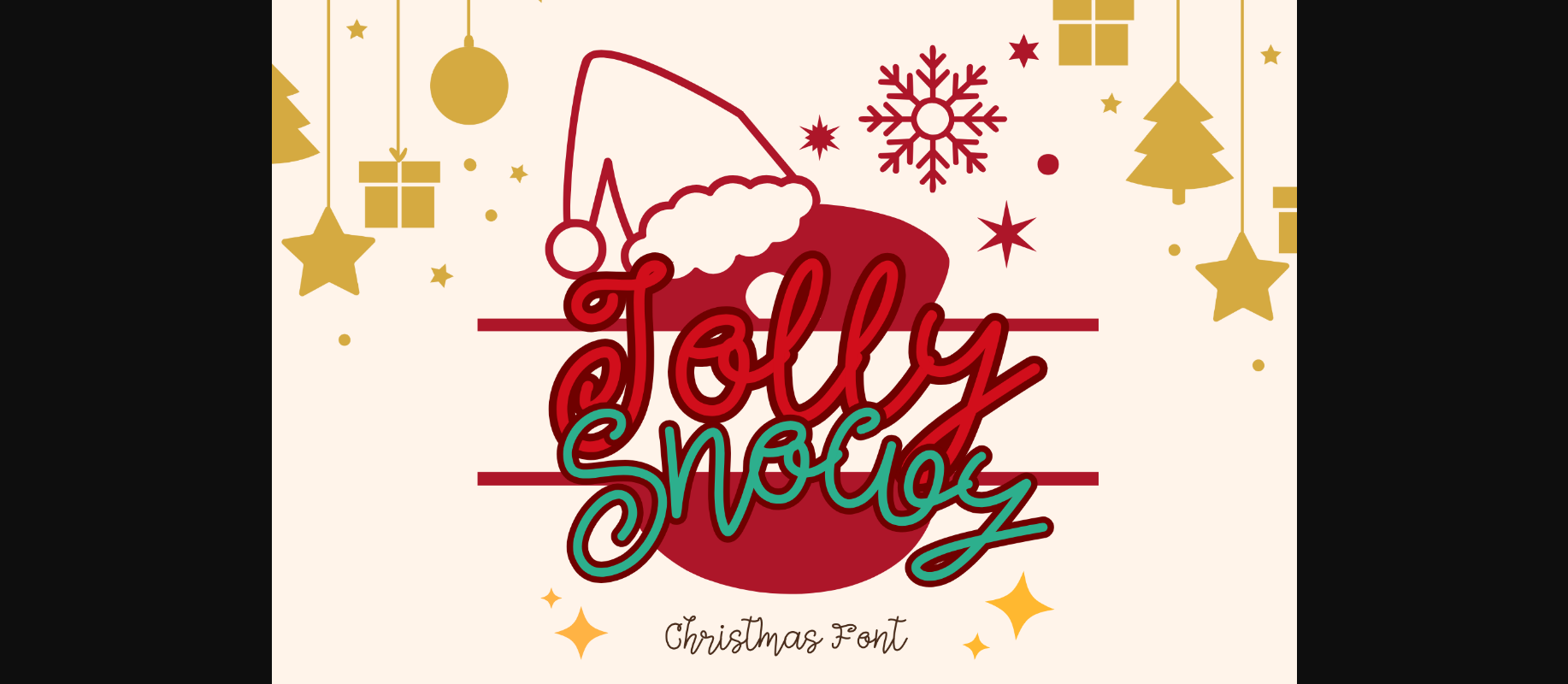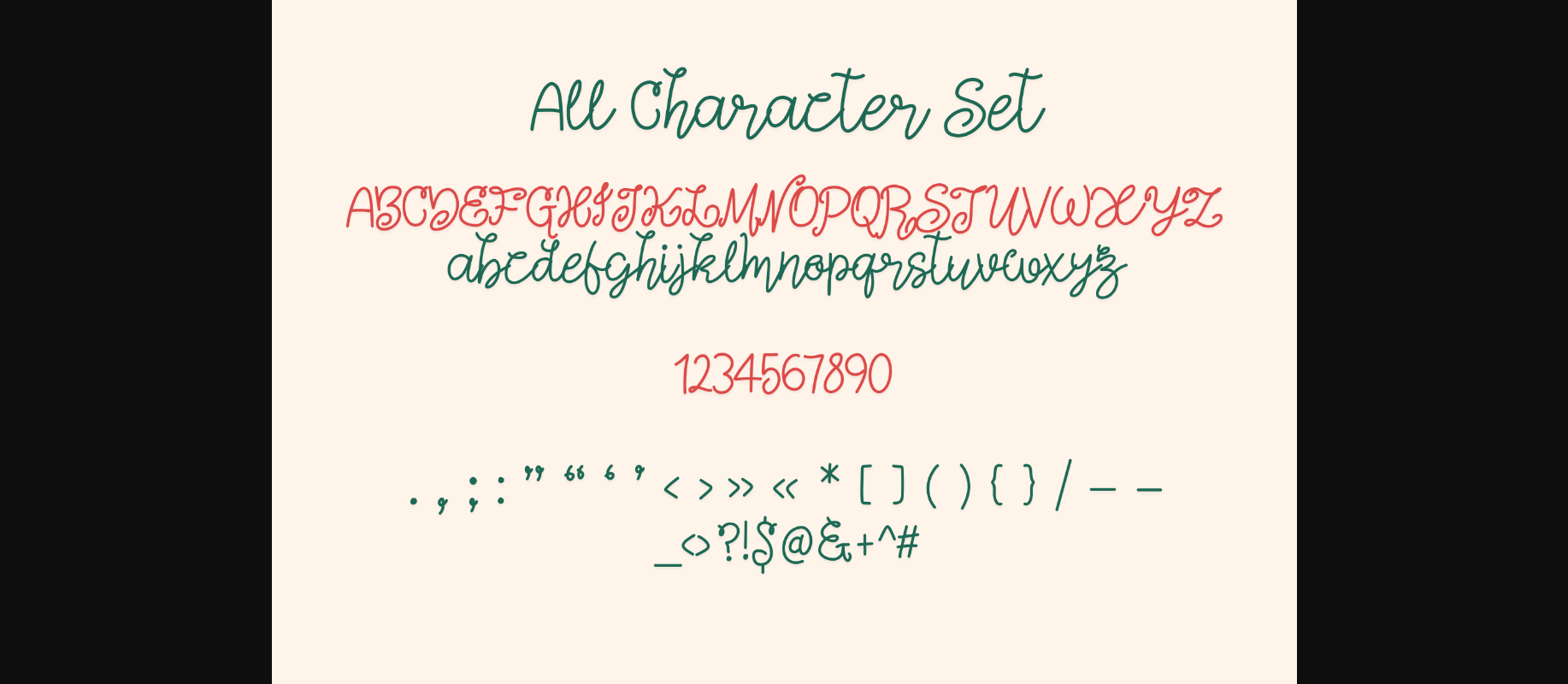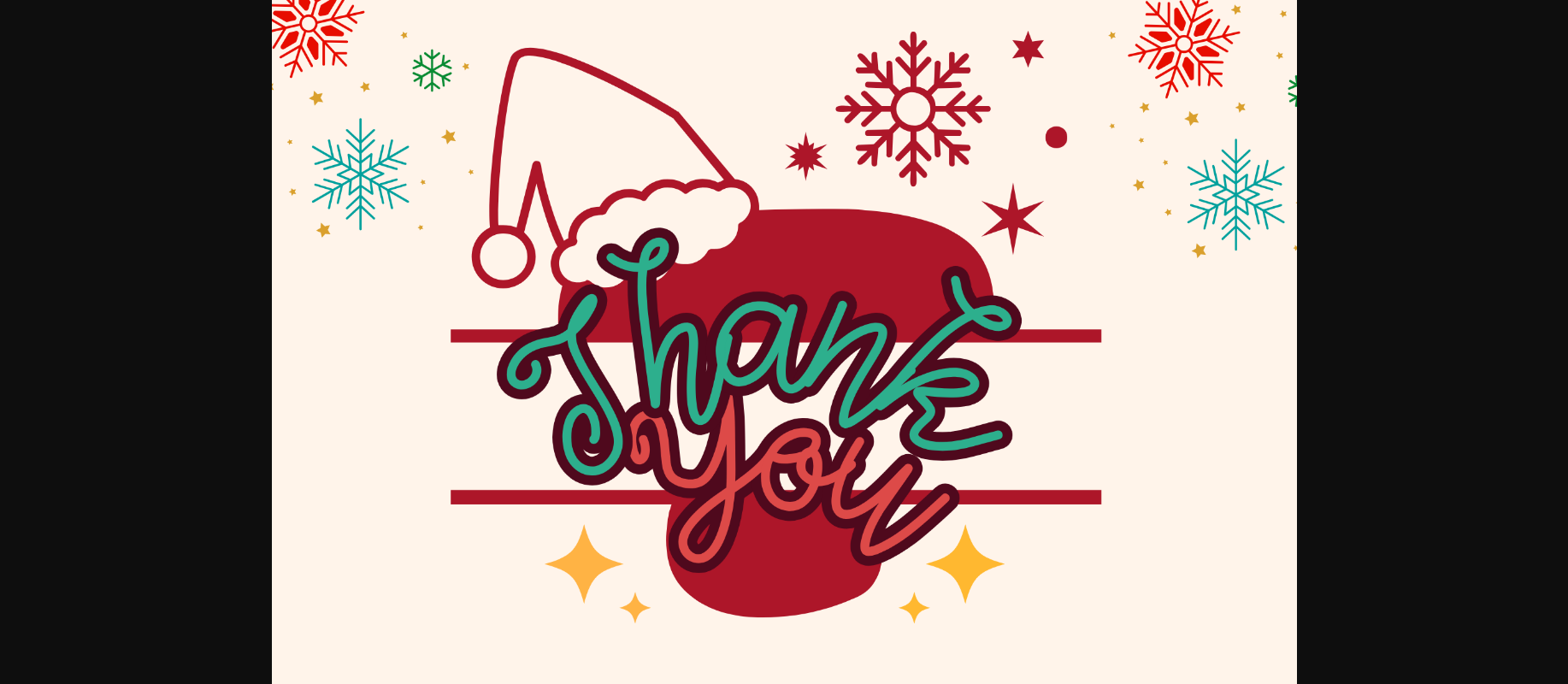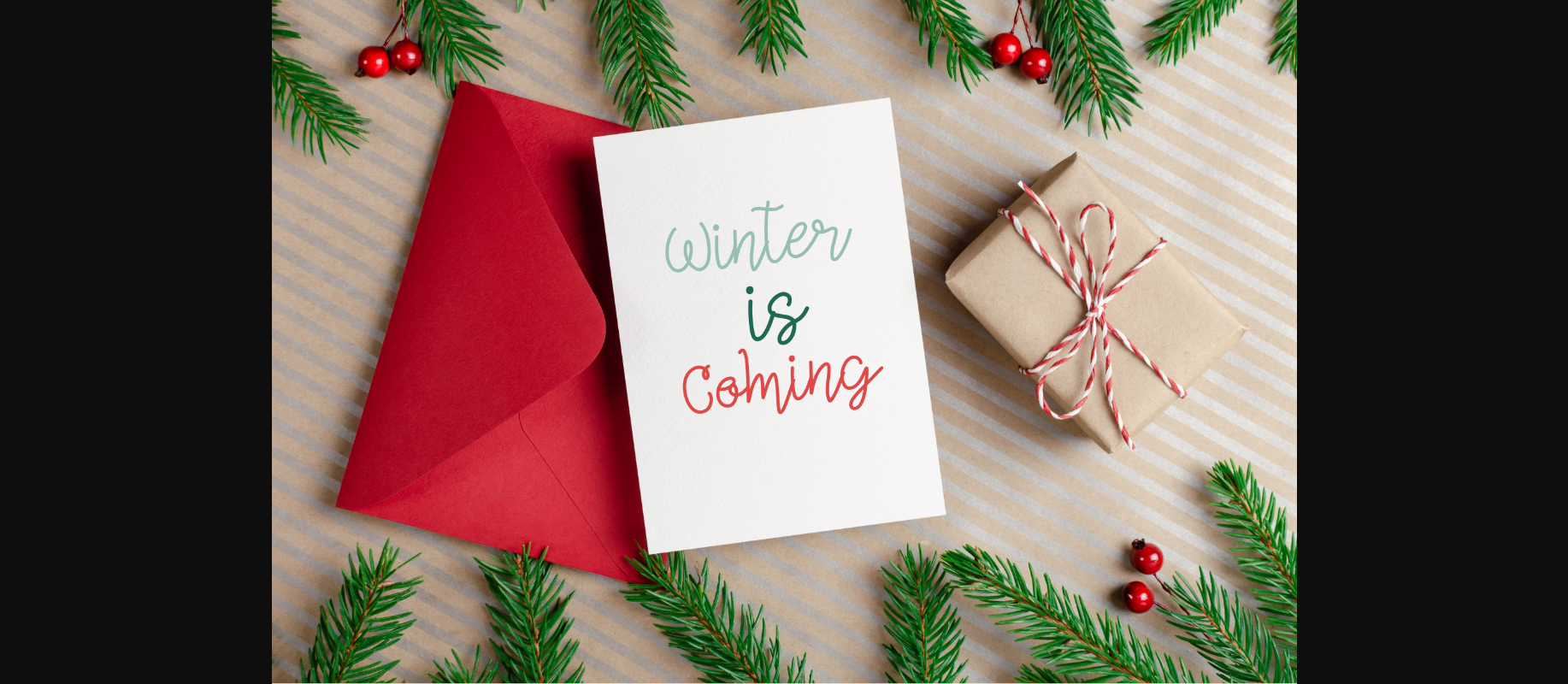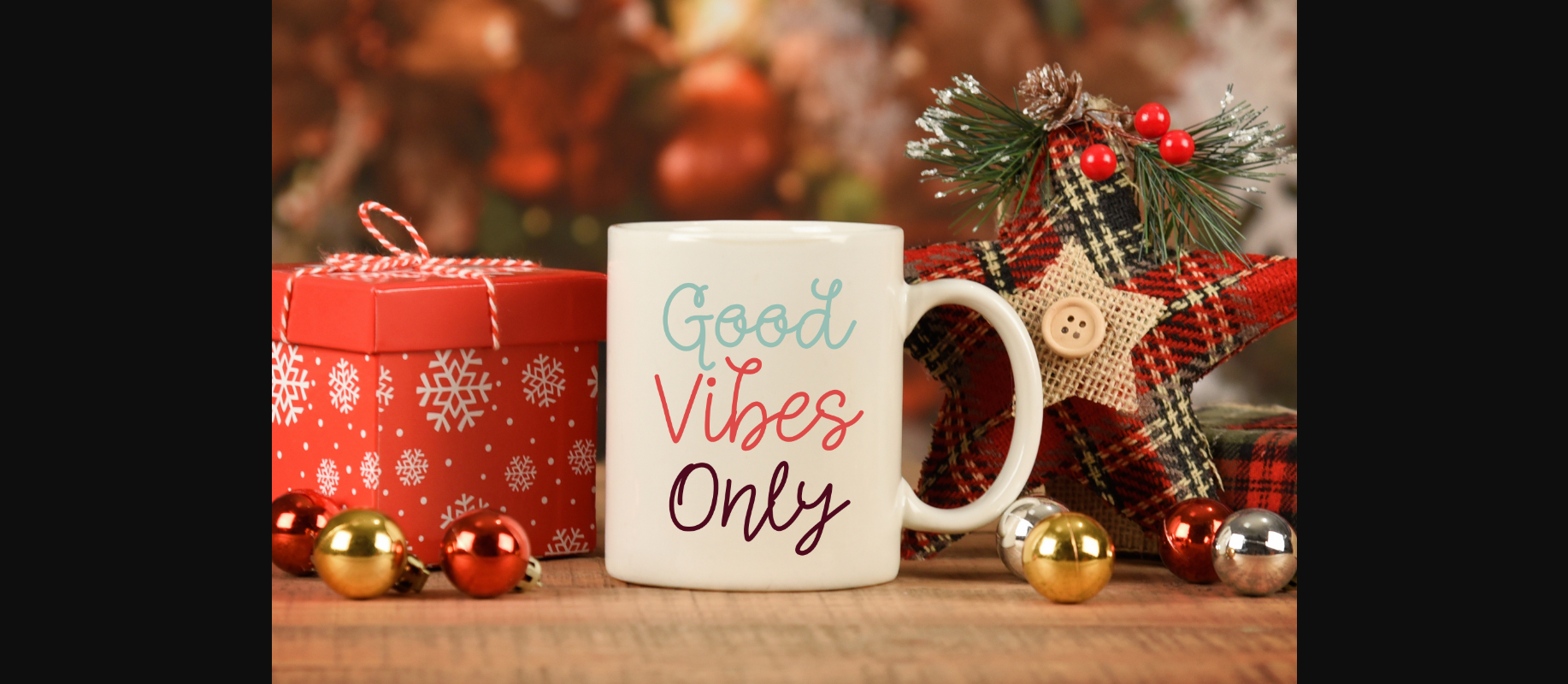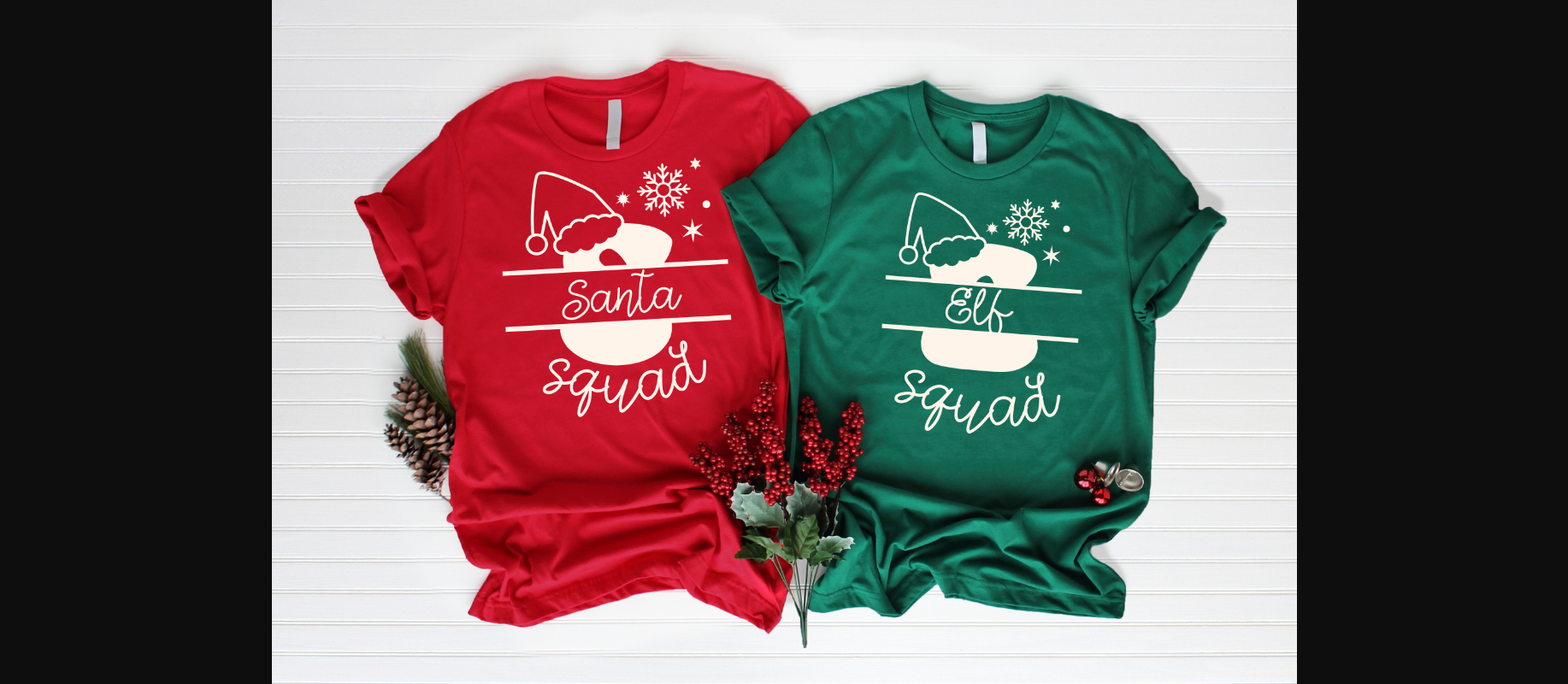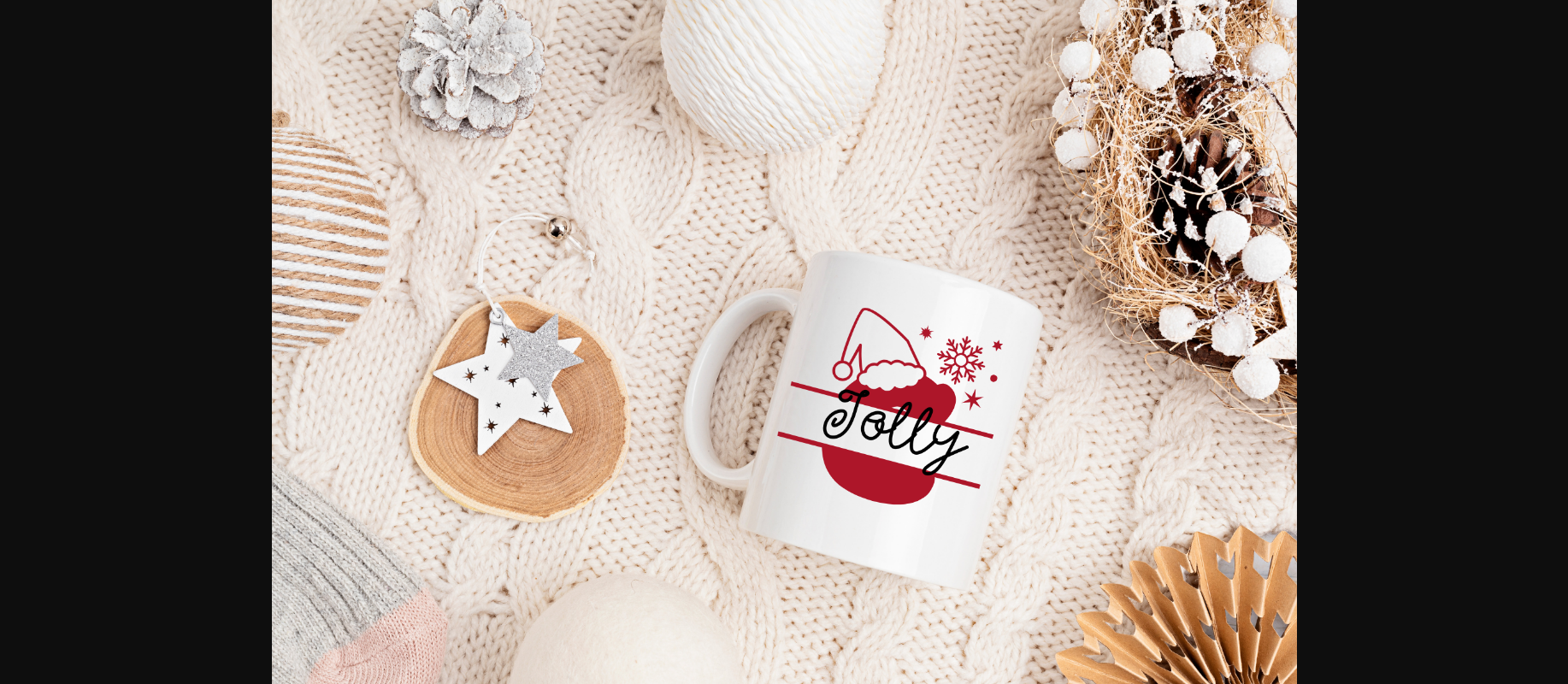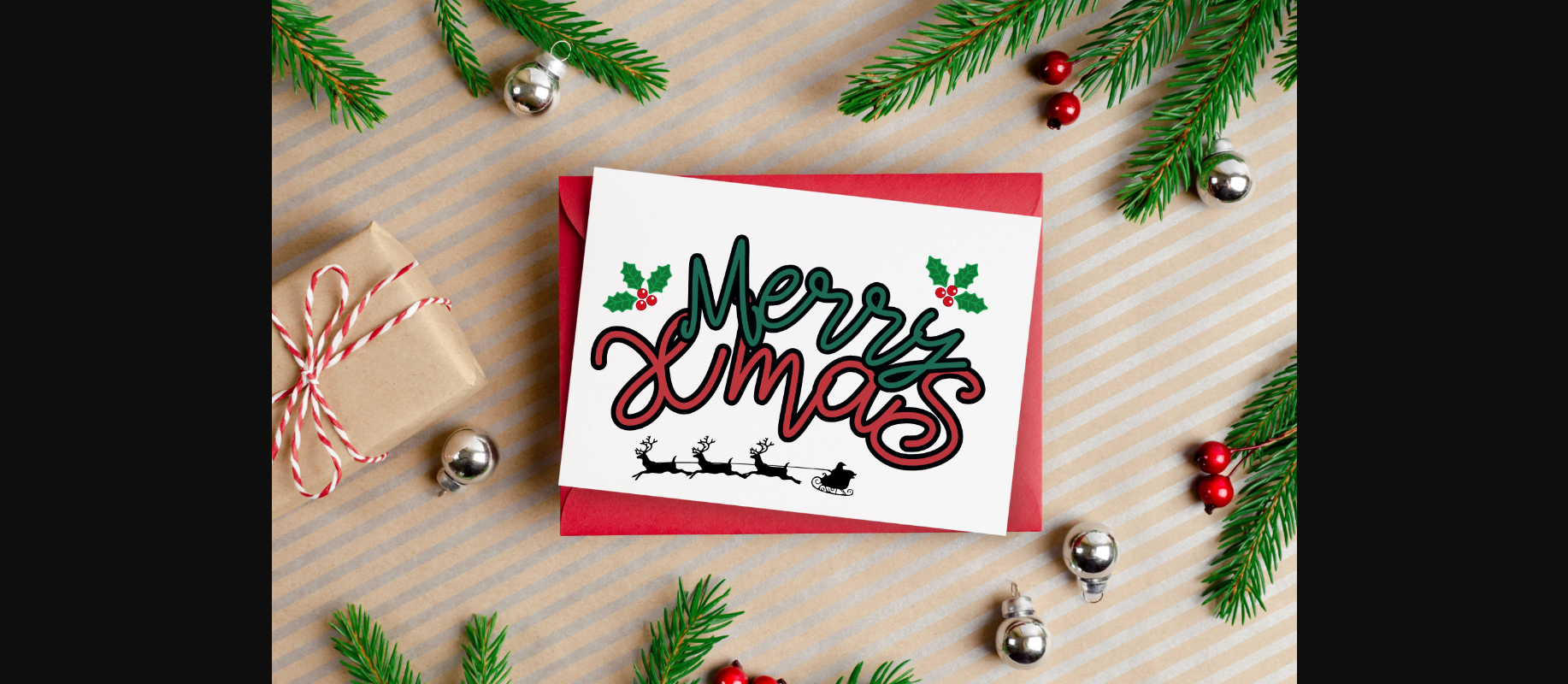
Jolly and Snowy Monogram Font
About Jolly and Snowy Monogram Font
Jolly And Snowy is a cute Christmas monogram and script font. It embodies playfulness and authenticity and is the perfect choice for all your favorite projects, or even for blog posts, logos, branding, ads, invitations, greeting cards, planners, photo albums, decorations, and much more. Add it to any of your designs, and enjoy the results!